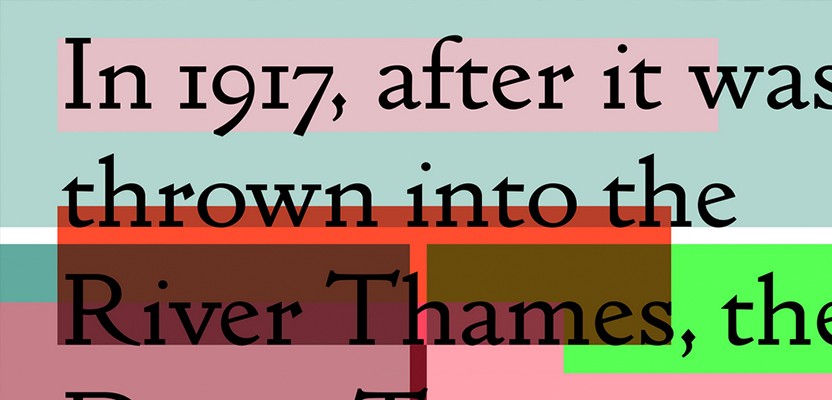
When you think of the things you might find in the River Thames, they’re all pretty much disgusting and a typeface isn’t one of them. But maybe you haven’t heard the remarkable story of the Doves Type font.
In 1900 T.J. Cobden-Sanderson asked Emery Walker to join his private press, based in Hammersmith. The Press was considered to be a significant contributor to the Arts and Crafts movement, with the founders associated with the likes of William Morris. But things took a turn in 1909, with the two founders in dispute and the partnership on the brink of dissolution. The Doves Type matrices were destroyed by Cobden-Sanderson in March 1913, when he threw them into the Thames from Hammersmith Bridge. He then began to destroy the types, which took him until January 1917, after 170 trips to the river.
Fast-forward to November 2014, when the letterpresses were discovered in the river. Salvaging the type, that had been crafted after the Venetian letterforms of the 15th Century, began. A whole load of history is packed into those curves. Thanks to the painstaking work of Robert Green, a digital process has been underway to restore the type. His ambition to recreate the Doves Type was met with some difficulties as ink spread inconsistencies and anomalies made the job a tough one. Although wishing to be close to the original as possible, Green has made some concessions to include the dollar and Euro signs, which is pretty nice of him considering it took him three years to piece together.
Green must have had to pour over samples and ephemera, such as Marianne Tidbcombe’s book on the Doves Press. He was advised by the Port of London Authority to scan the river himself before employing professional divers. In Creative Review Green recalls, “I went on to the foreshore when the tide was out, looked around the riverbed and found three pieces within 20 minutes”. Green recovered 150 pieces, although he never found the whole alphabet.
The Doves Type facsimile has been digitalised and is now available to license. It’s even inspired designers over at Swiss studio Faure & Verona to create the Thames Capsule, where they’ve set it against various coloured backgrounds and given the story it’s own microsite. In enhancing some of the Arts and Craft qualities of the type, in particular “the richness of curves and the humanistic based shapes” the studio have attempted to bring the story to life, and to create an element of atmosphere around the type. Their work with the typeface is below: